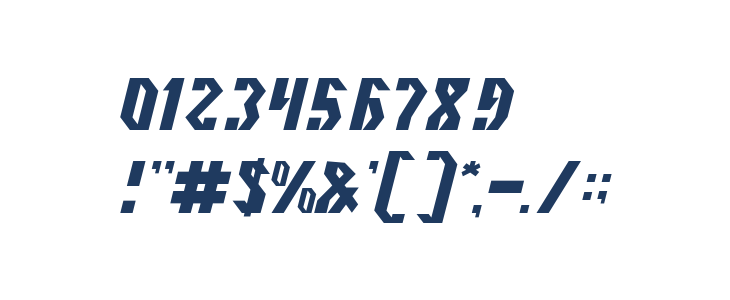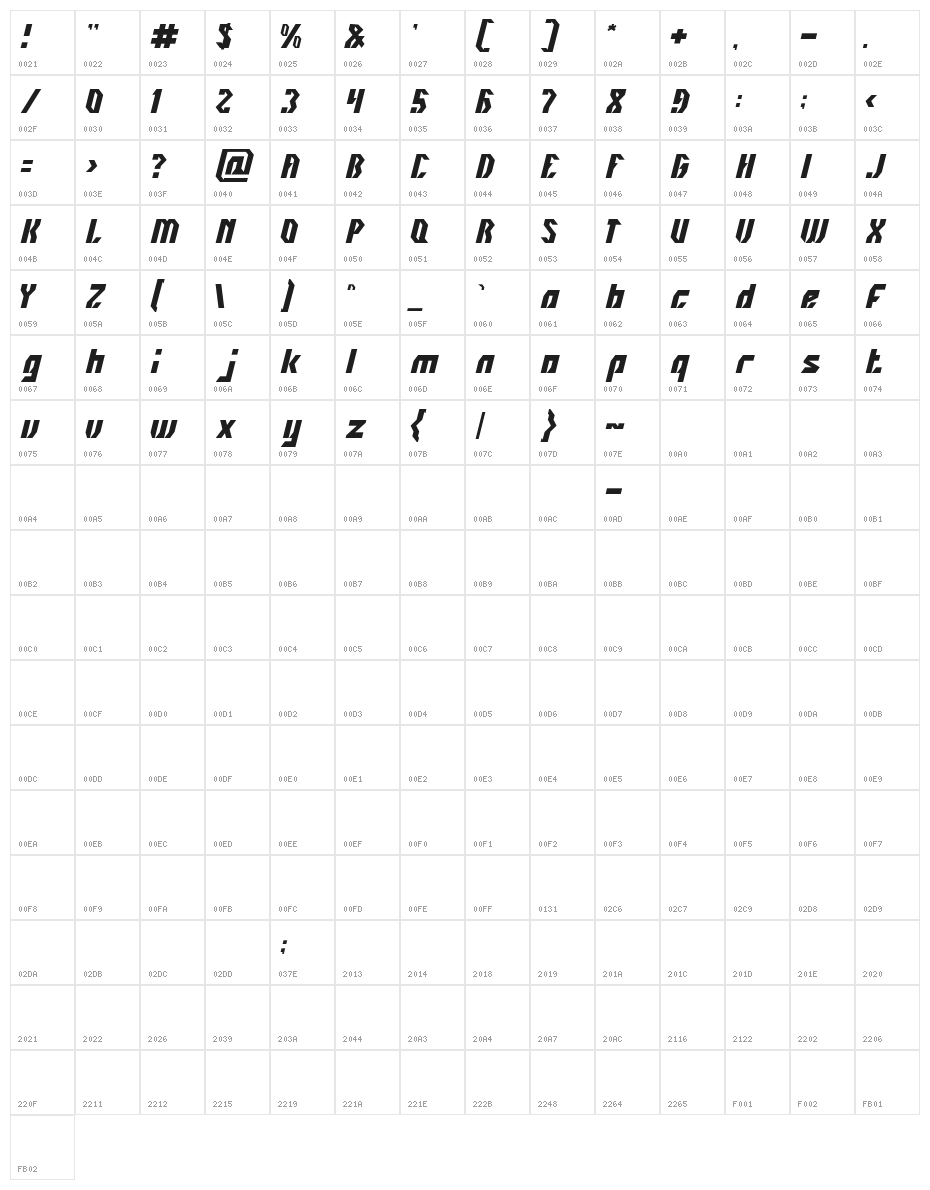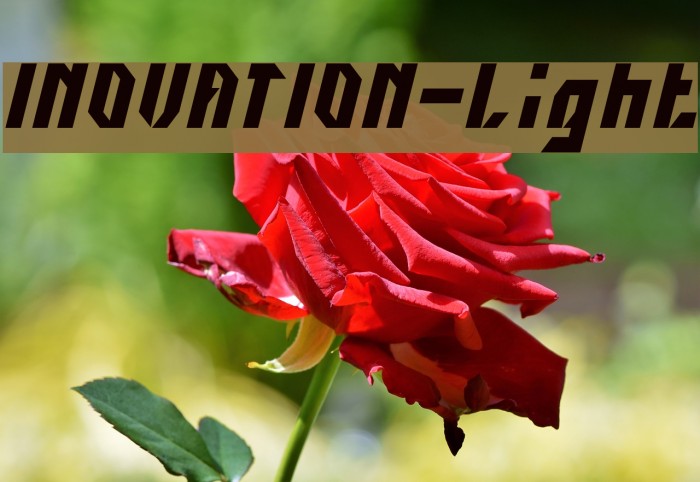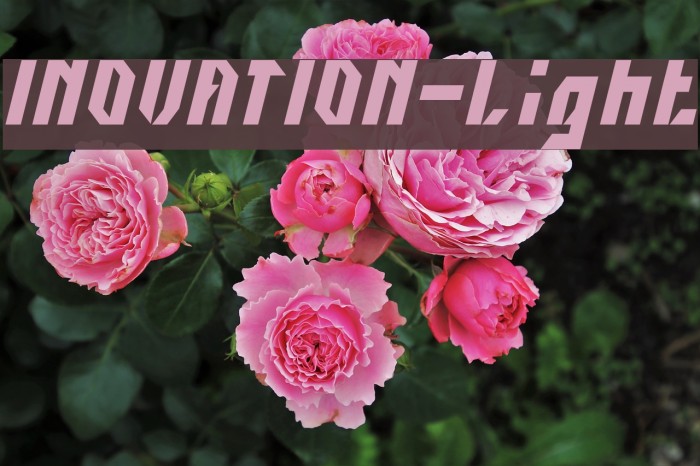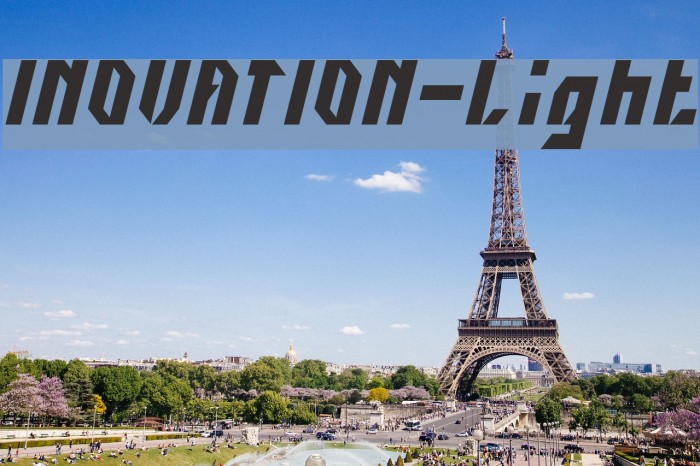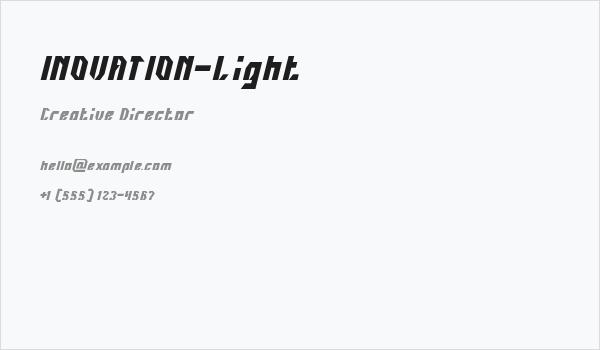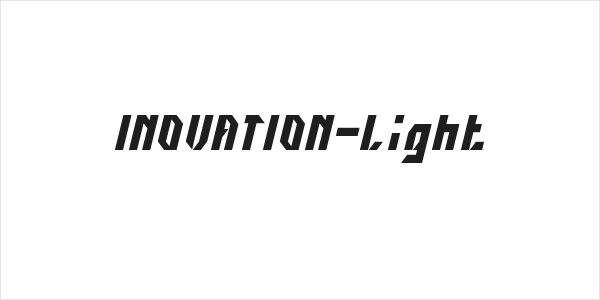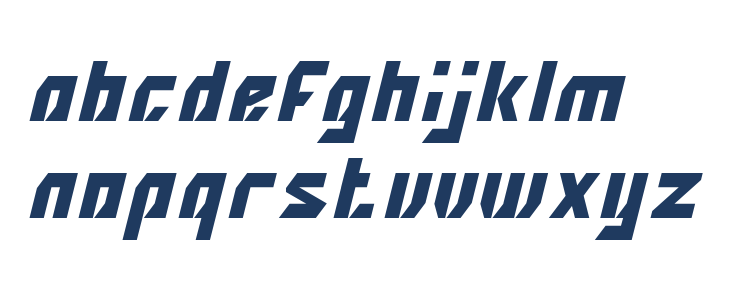
INOVATION-Light Font
INOVATION-Light Description
This font features a bold and angular design, characterized by sharp edges and a futuristic aesthetic. The uppercase and lowercase letters maintain a consistent geometric style, with each character exhibiting a unique angular cut that adds to the overall dynamic appearance. The numbers and special characters follow the same design principles, ensuring uniformity across all glyphs. The font's boldness and distinct angles make it stand out, suitable for projects that require a modern and edgy look.
| Proposed Projects | Ideal for branding, posters, video game graphics, and any project needing a modern, edgy aesthetic. |